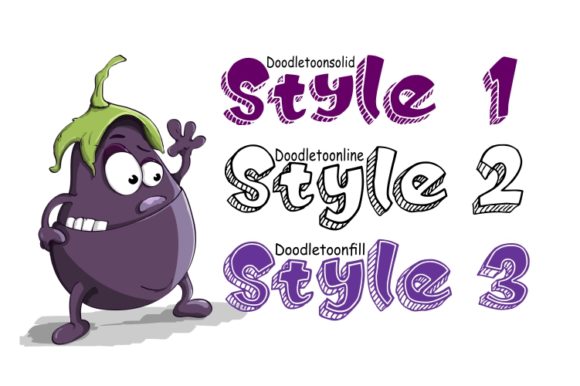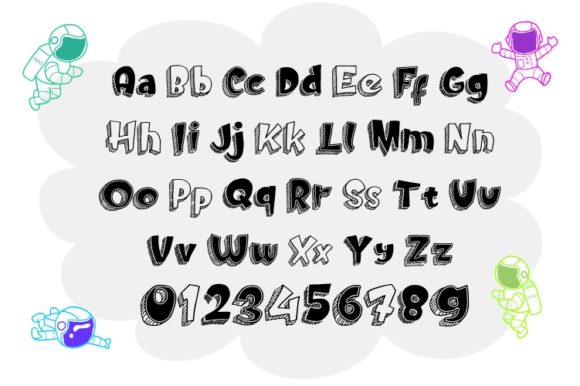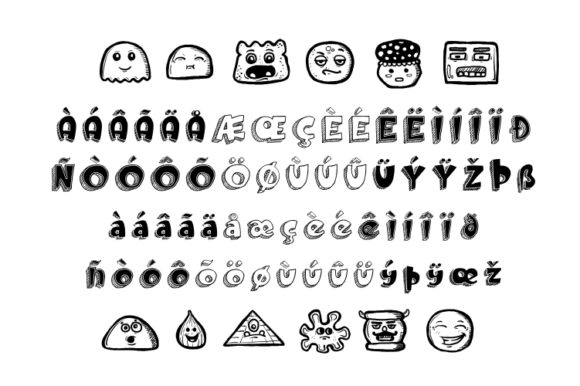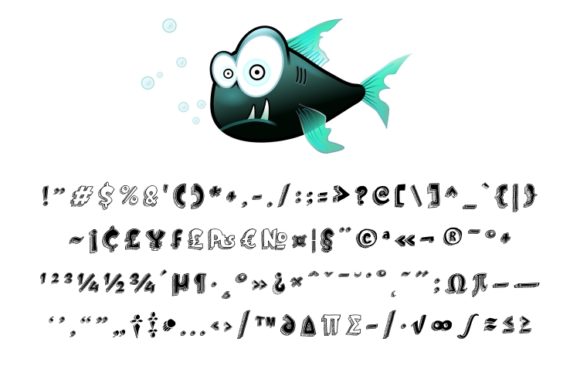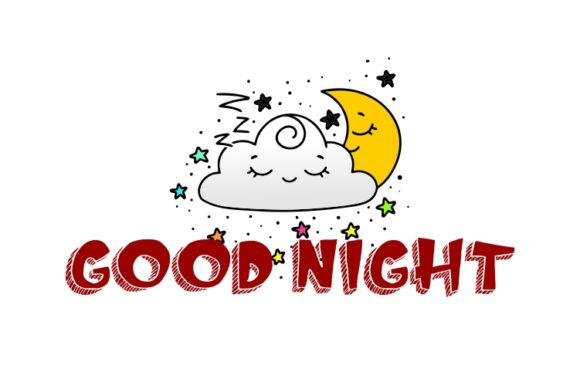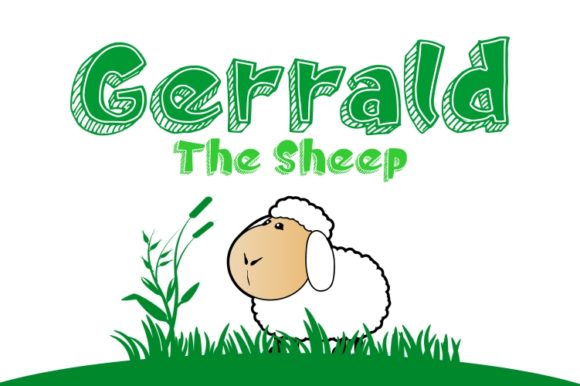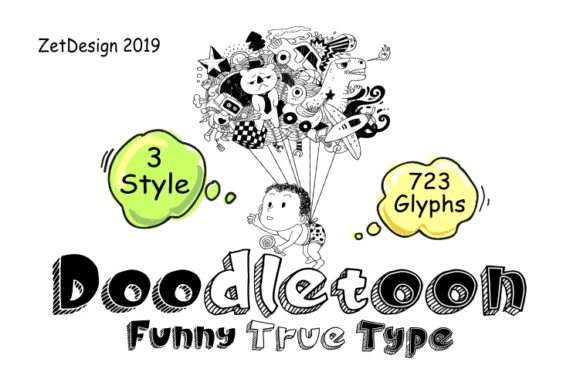
Doodletoon Font: Add a Whimsical Twist to Your Design Projects
Are you looking for a font that can add a playful and imaginative touch to your design projects? Look no further than the Doodletoon font! This comic-style sans serif font has a unique feel that is sure to capture the attention of your audience. In this article, we’ll take a closer look at the Doodletoon font, its features, and how you can use it to elevate your designs.
What is Doodletoon Font?
Doodletoon is a comic-style sans serif font that is designed to bring a whimsical twist to your design projects. Its unique feel is inspired by the playful and imaginative world of comics, making it perfect for designers and crafters who want to add a touch of fun and personality to their work.
One of the standout features of the Doodletoon font is its bold and playful lines. The font has a distinctive, hand-drawn feel that gives it a charming and approachable quality. Whether you’re working on a graphic design project, a crafting project, or a digital illustration, the Doodletoon font is sure to add a touch of whimsy and personality to your work.
Key Features of Doodletoon Font
So, what makes the Doodletoon font so special? Here are some of its key features:
• Comic-style design: The Doodletoon font has a distinctive comic-style design that is sure to capture the attention of your audience.
• Unique feel: The font has a unique feel that is inspired by the playful and imaginative world of comics.
• Bold and playful lines: The font has bold and playful lines that give it a charming and approachable quality.
• Hand-drawn feel: The font has a distinctive, hand-drawn feel that gives it a personal and whimsical touch.
• Sans serif design: The font has a clean and modern sans serif design that makes it perfect for a wide range of design projects.
How to Use Doodletoon Font in Your Design Projects
So, how can you use the Doodletoon font in your design projects? Here are a few ideas to get you started:
• Graphic design projects: The Doodletoon font is perfect for graphic design projects, such as posters, flyers, and brochures.
• Crafting projects: The font is also great for crafting projects, such as card making, scrapbooking, and DIY signage.
• Digital illustrations: The Doodletoon font is perfect for digital illustrations, such as comics, cartoons, and animations.
• Social media graphics: The font is also great for social media graphics, such as Facebook posts, Instagram stories, and Twitter headers.
Tips for Using Doodletoon Font
Here are a few tips for using the Doodletoon font in your design projects:
• Use it sparingly: While the Doodletoon font is playful and fun, it can be overwhelming if used too much. Use it sparingly to add a touch of whimsy to your designs.
• Pair it with other fonts: The Doodletoon font pairs well with other fonts, such as sans serif fonts and script fonts. Experiment with different font combinations to find the perfect look for your design.
• Experiment with colors: The Doodletoon font looks great in a variety of colors, from bright and bold to pastel and soft. Experiment with different colors to find the perfect look for your design.
Font Name Doodletoon Font
Author ZetDesign
In conclusion, the Doodletoon font is a unique and playful font that is sure to add a whimsical twist to your design projects. Its comic-style design, bold and playful lines, and hand-drawn feel make it perfect for designers and crafters who want to add a touch of fun and personality to their work. Whether you’re working on a graphic design project, a crafting project, or a digital illustration, the Doodletoon font is sure to be a great choice.
So, why not give the Doodletoon font a try? With its versatility and playfulness, it’s sure to become a favorite in your design toolkit.